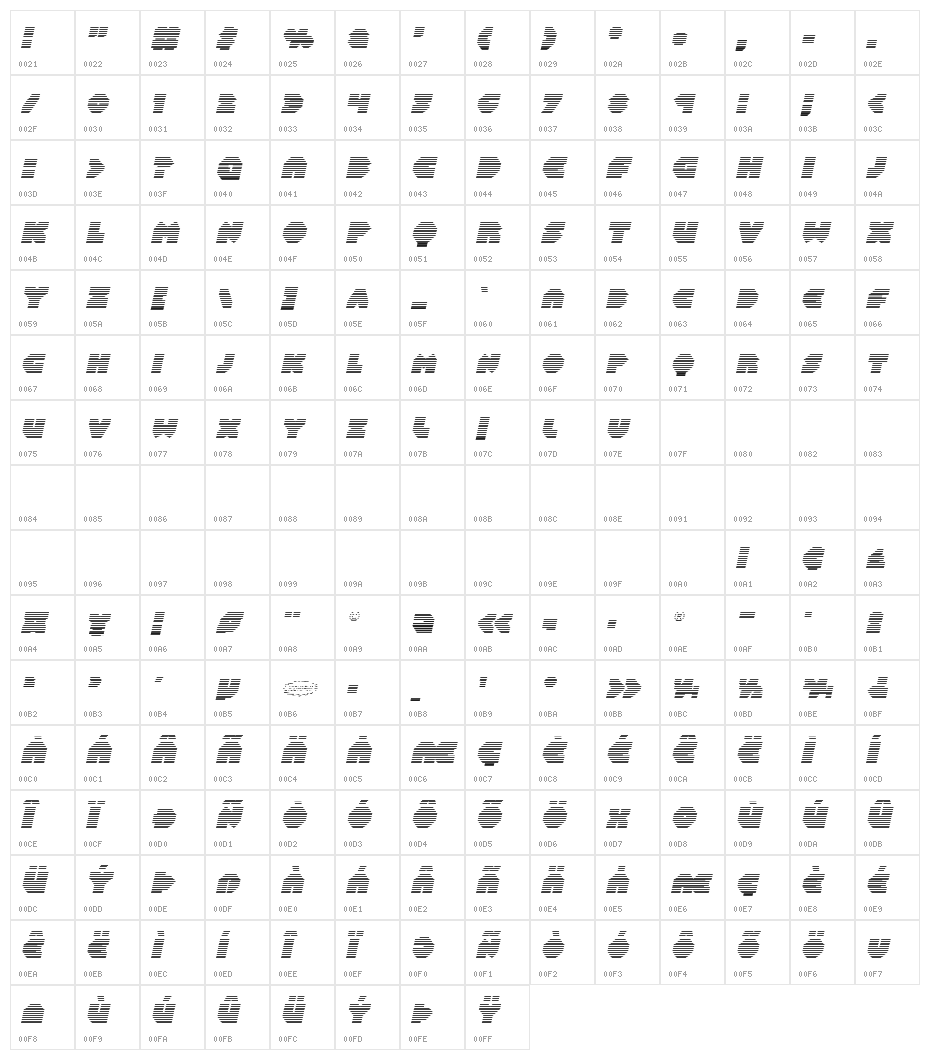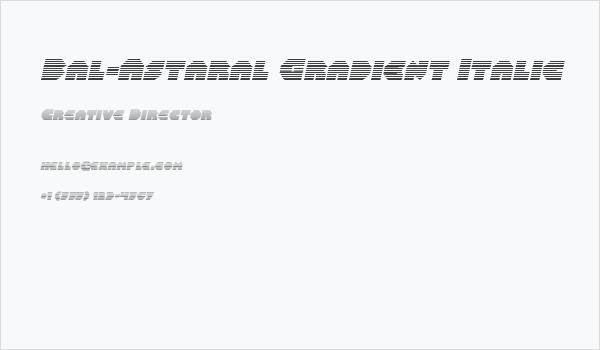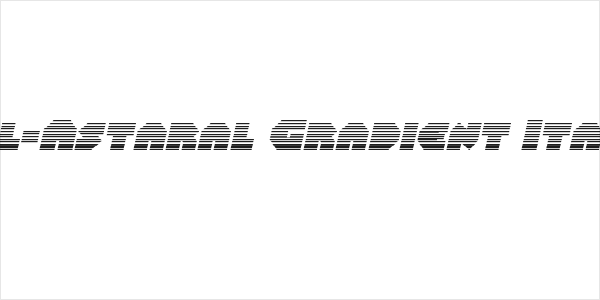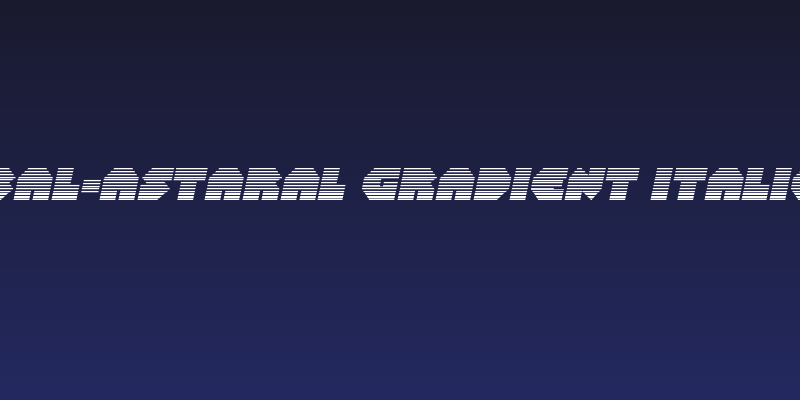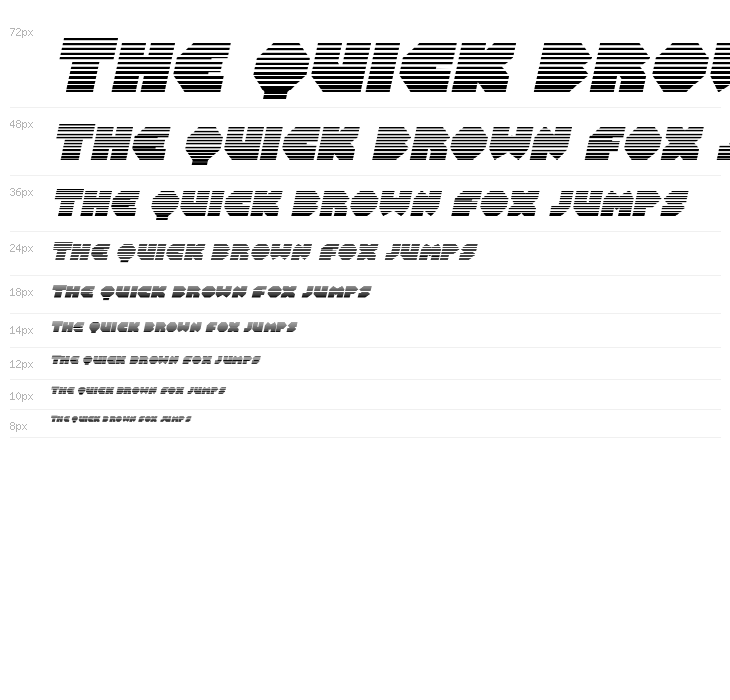
Bal-Astaral Gradient Italic Font
Bal-Astaral Gradient Italic Description
This font features a bold, italicized style with a unique gradient effect created by horizontal lines that form each character. The design is highly geometric and structured, giving it a futuristic and dynamic appearance. The characters are wide and have a strong presence, making them ideal for attention-grabbing designs. The font's distinct line pattern adds a sense of movement and energy, making it suitable for modern and innovative projects. The uppercase and lowercase letters maintain a consistent style, and the numbers and special characters are equally bold and striking.
| Proposed Projects | Ideal for modern branding, tech-related designs, futuristic posters, and innovative advertising campaigns. |